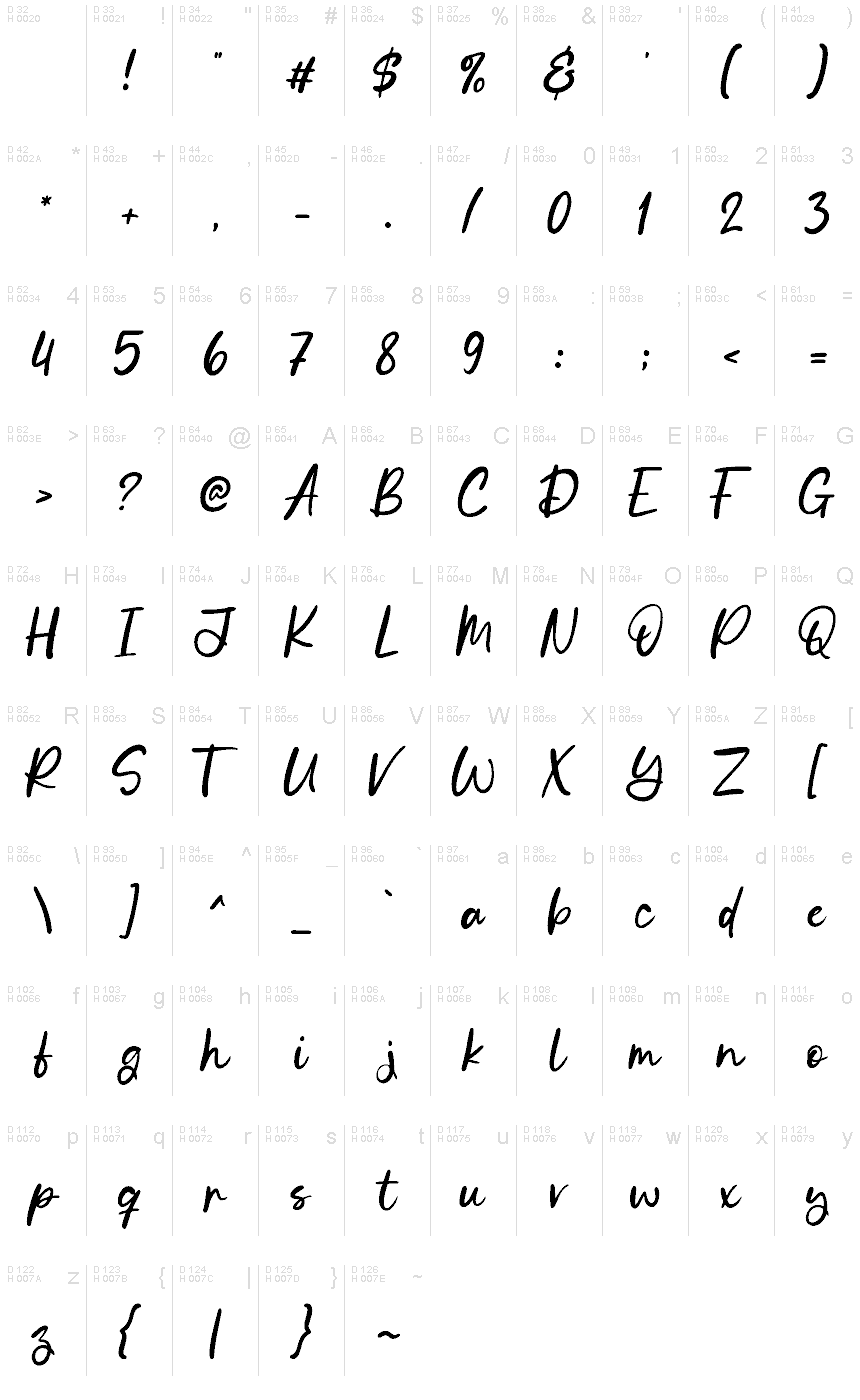
Travellia
Travellia font by Khurasan is a free handwritten font with an elegant flow and expressive curves. Its romantic, casual, and modern script style captures attention effortlessly as it balances between creativity and legibility. Smooth curves, natural lines, and vibrant strokes describe this beautiful display typeface.